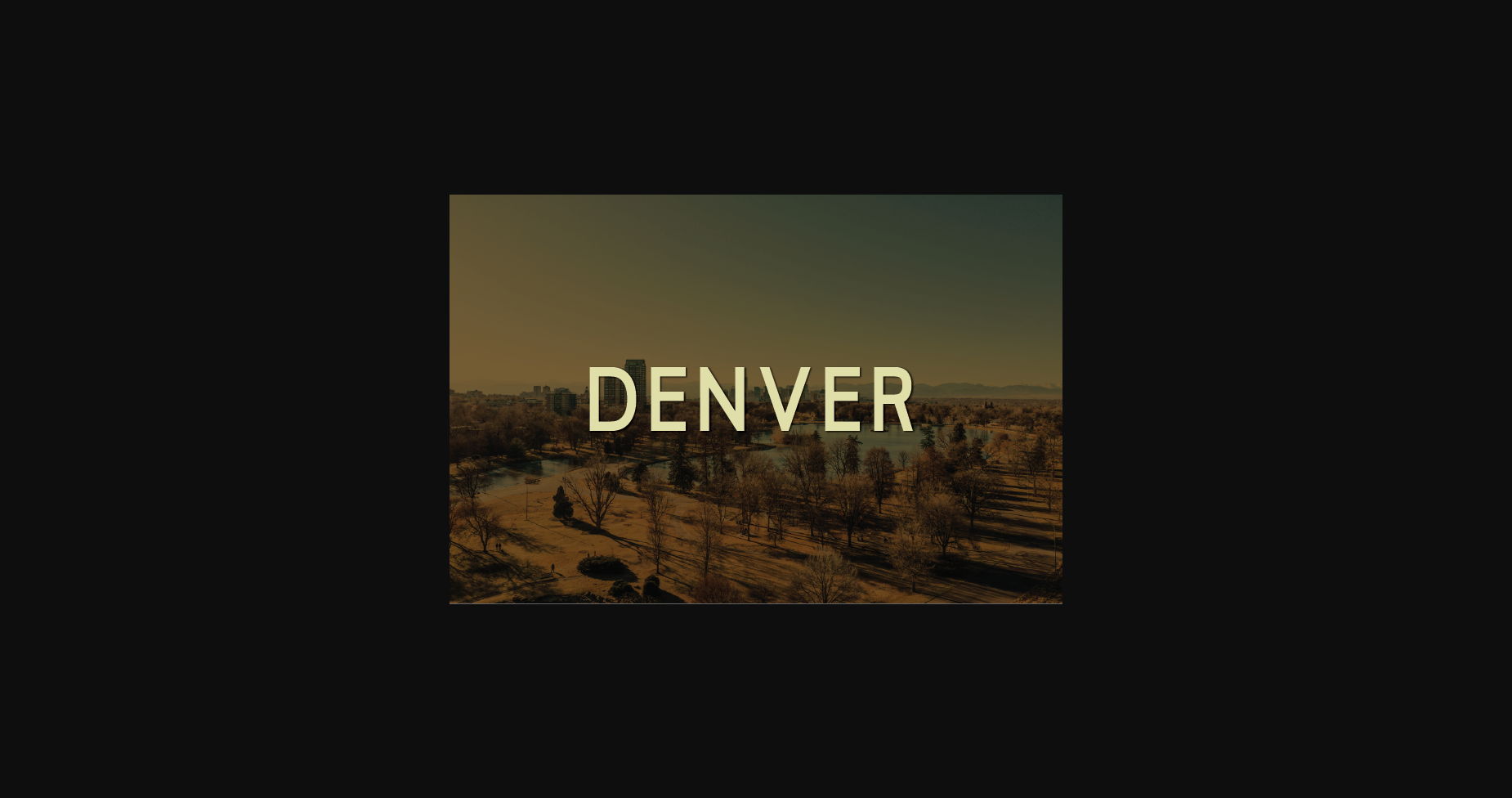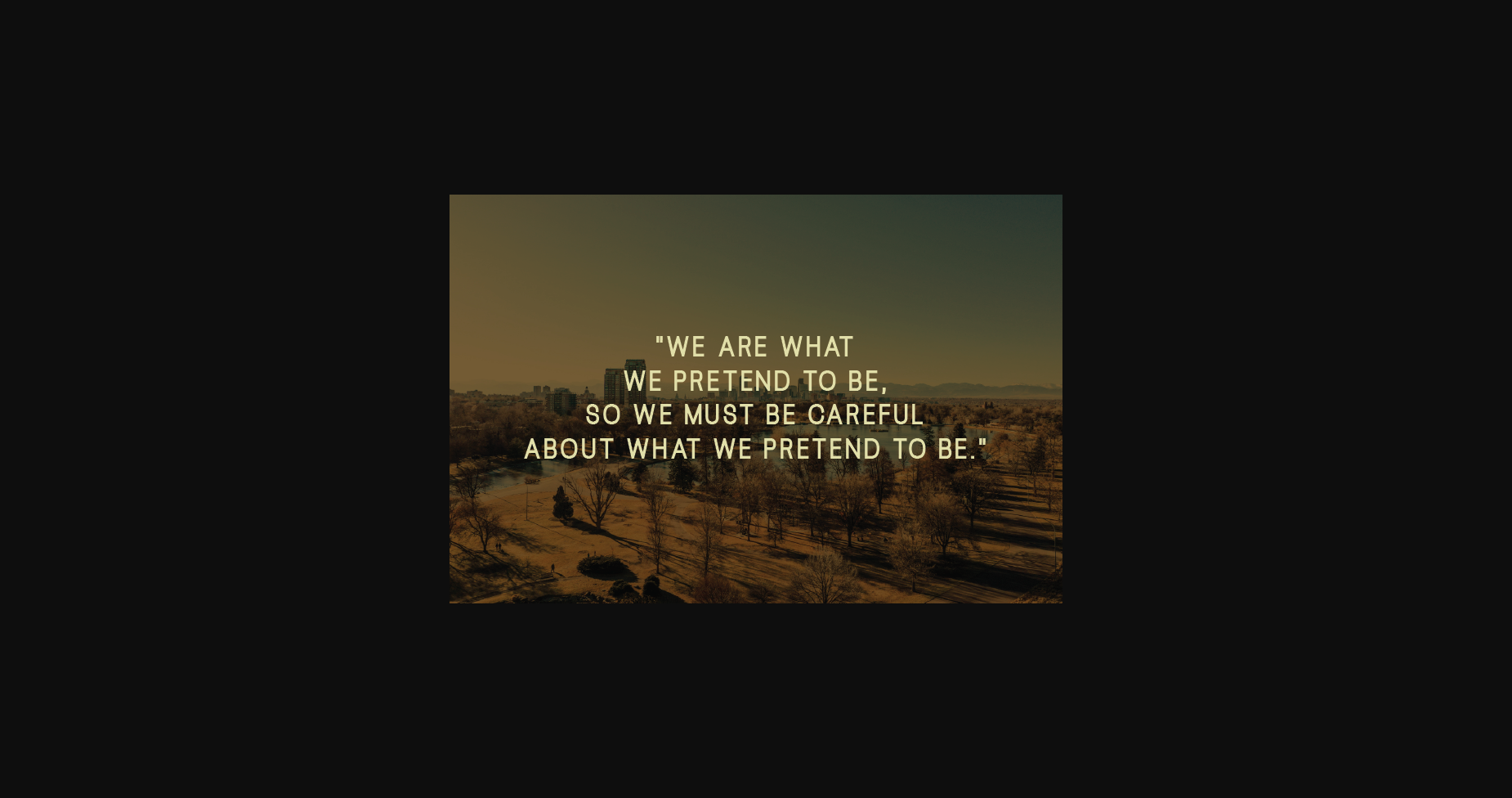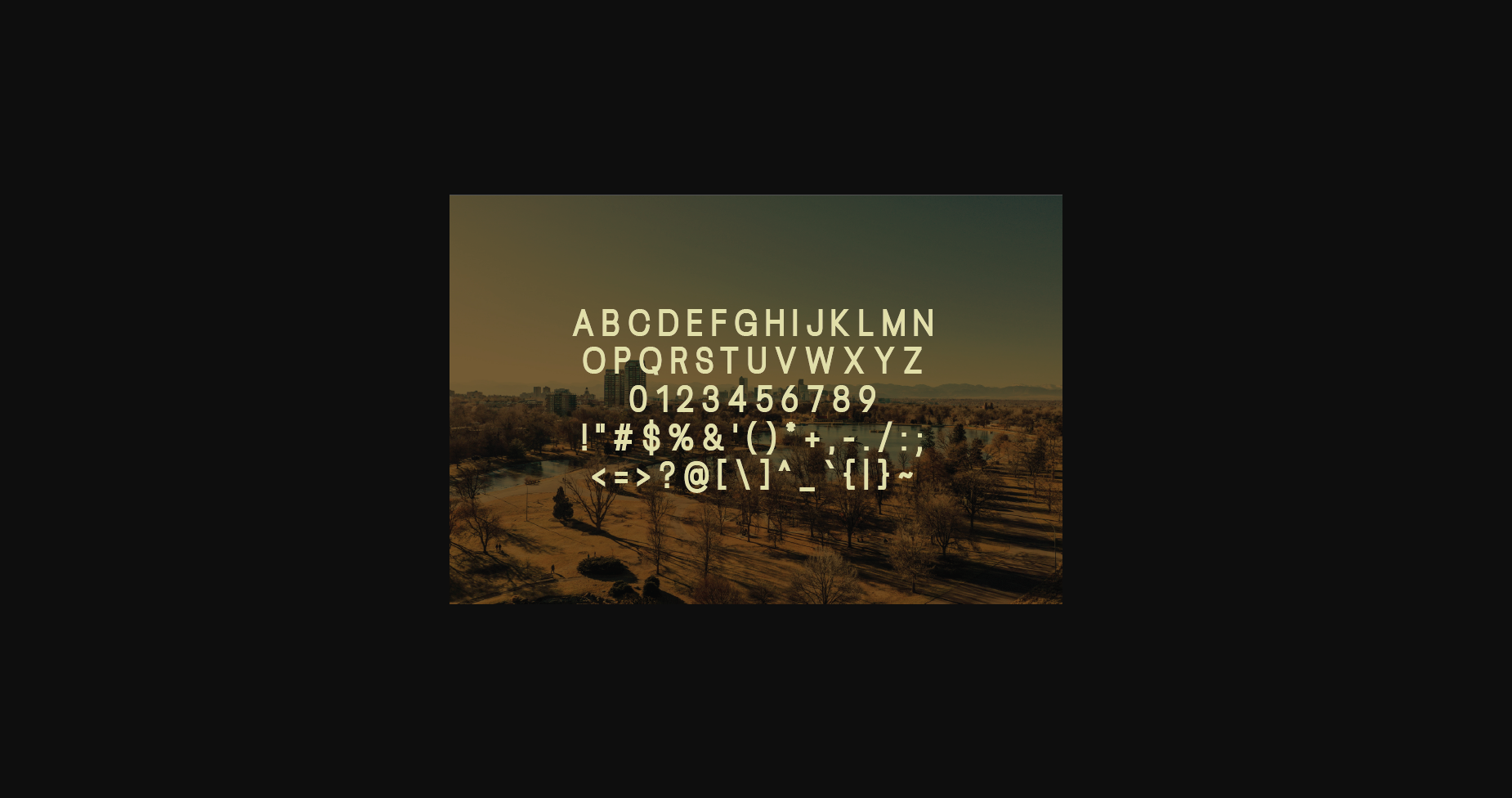
Denver Font
About Denver Font
Denver is a modern and classy sans serif typeface. This extremely versatile font isperfect for logos, weddings, invitations, quotes, advertisements, print, magazines, and more!